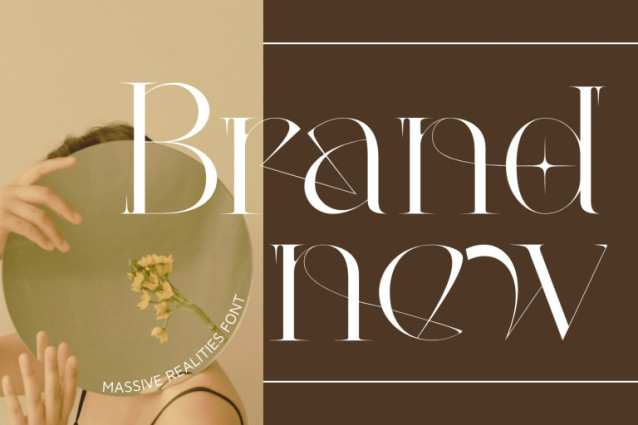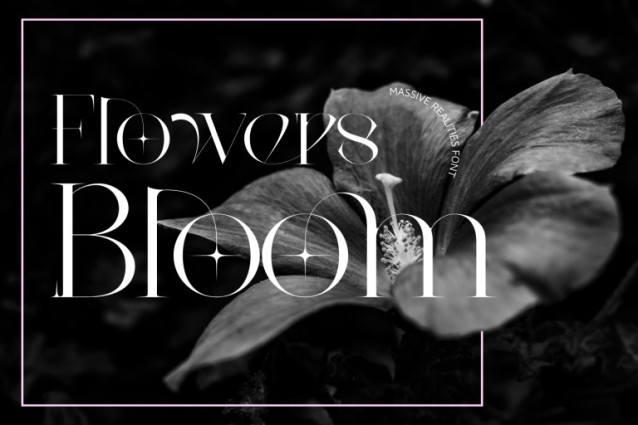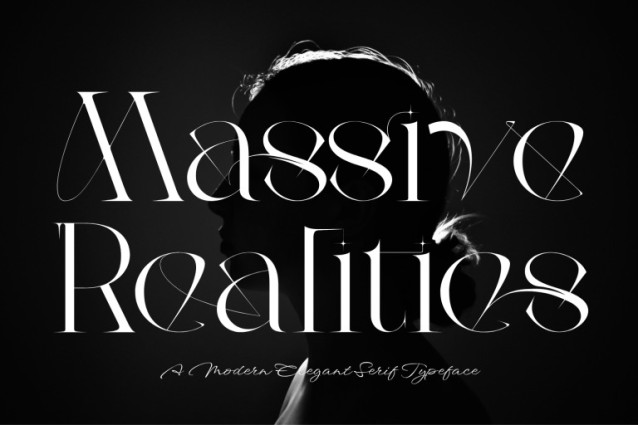
Massive Realities Font
Massive Realities – Artistic Serif Font is an elegant high-contrast serif display font designed with refined curves, delicate ornamental lines, and a luxurious editorial spirit. Its graceful letterforms combine dramatic thick-to-thin contrast with soft flowing details, creating a sophisticated and artistic visual rhythm. Perfect for fashion branding, beauty packaging, perfume labels, magazine headlines, wedding stationery, boutique logos, and premium visual identities, Massive Realities brings elegance, romance, and high-end charm to every design.
🔤Features:
Uppercase & Lowercase Letters
Around 100 Special Ligatures & Alternates
Accented Characters for multilingual support
🔤About 100 ligatures combined with Stylistic Alternates Font: